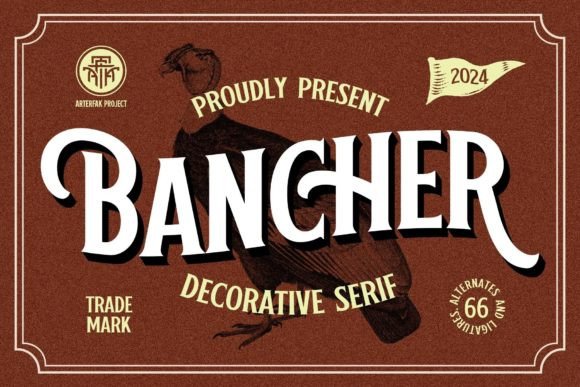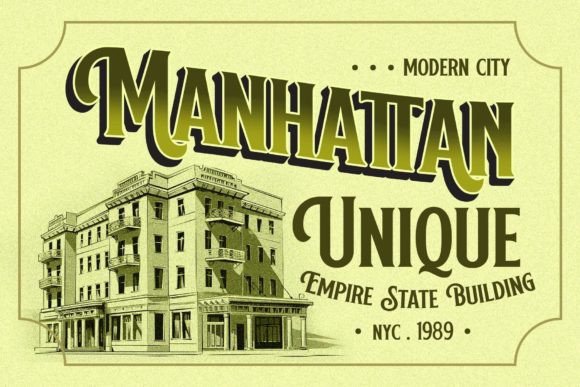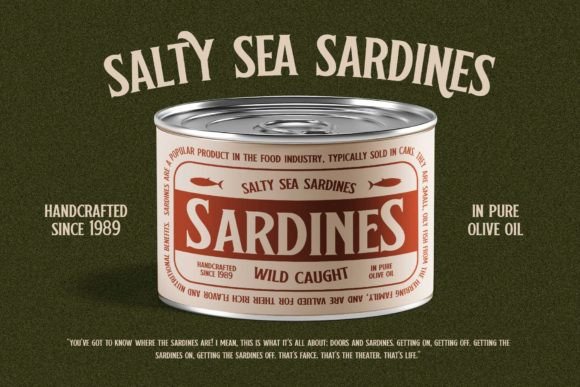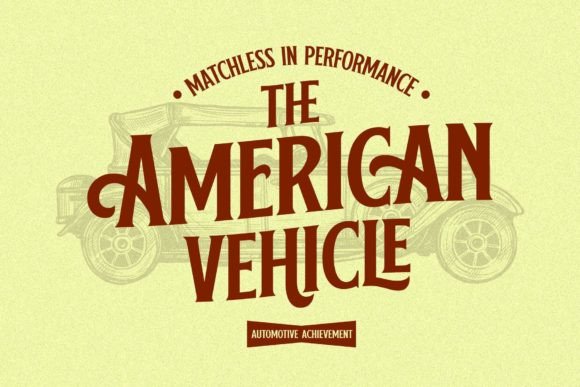
Bancher Font: Vintage Serif with Alternate Letters for Unique Logo Design
About the Bancher Font
Introducing the Bancher Font, a beautifully crafted typeface designed to elevate your creative projects. Introducing “Banchers,” a vintage-inspired serif font with a wealth of alternate characters. Bold and unique serif condensed, this font blends the charm of classic handcrafted typography with a modern, elegant touch.
Banchers transports you to a nostalgic, old-school era, making it perfect for headlines, displays, logos, logotypes, posters, stickers, signage, apparel, packaging, labels, and much more.
Banchers’ bold condensed serifs make it ideal for headlines, logos, and short impactful displays where its vintage charm and strong character shine. It’s equally effective on packaging and signage, lending a touch of sophisticated retro flair. However, its condensed nature and strong stroke weight make it less suitable for body text or long passages of writing. Avoid using it for UI elements requiring high readability.
For a balanced and sophisticated look, pair Banchers with a clean sans-serif like Montserrat or Open Sans for body copy. To enhance its vintage appeal, consider pairing it with a script font such as Great Vibes for a more playful feel or a more refined handwritten style. Alternatively, a geometric sans-serif like Futura adds a modern counterpoint, creating visual interest.
Banchers projects a confident, sophisticated, and slightly nostalgic personality. It’s a strong choice for brands aiming for a vintage-inspired yet modern aesthetic, particularly those in the fashion, food & beverage, or lifestyle sectors.
Bancher Font Usage Examples
Bancher Font Example